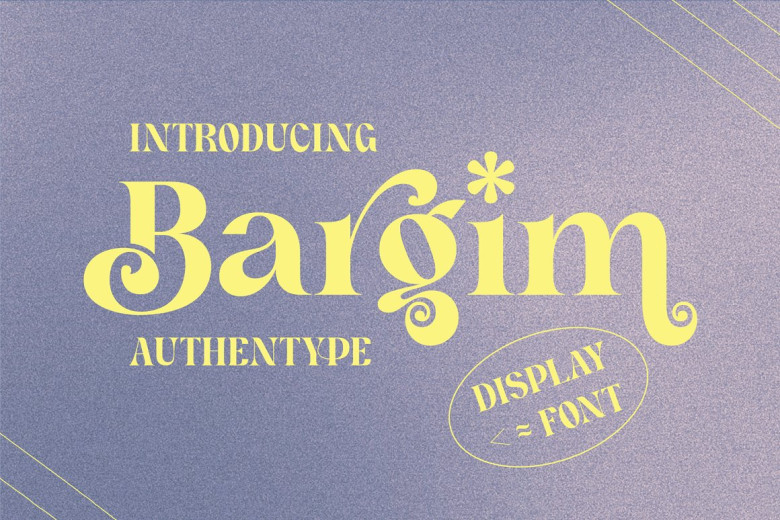
Bargim Font
Bargim is a modern display font that is both beautifully curved and charming in form. Ensuring the font looks gentle, subtle and curvy, the Bargim letter is decorated with slightly tracery lines.
Bargim Display Font